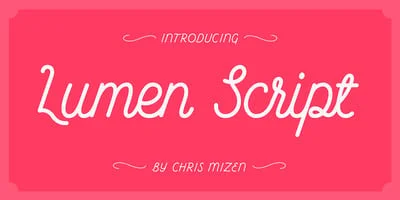
Lumen Script
Lumen Script Font
Lumen Script Font is perfect for luxury wedding invitation designs, elegant calligraphy workshop branding, high-end stationery boutique signage, sophisticated event planning communications, premium greeting card collections, upscale floral design marketing, refined personal branding materials, and distinguished social occasion announcements.
Lumen Script Font is exciting because it radiates the luminous beauty of masterful penmanship with its gracefully flowing letterforms that seem to dance across the page with the ethereal elegance of candlelight and the timeless sophistication of hand-lettered artistry. The typeface embodies the romantic tradition of fine calligraphy and the intimate beauty of personal correspondence, creating an immediate sense of heartfelt elegance and refined intimacy that resonates with those who appreciate the lost art of beautiful handwriting.
Lumen Script Font family includes Light, Regular, Medium, Bold, and Flourish variants, complemented by extensive swash alternatives and calligraphic decorative elements, offering designers exquisite typography tools for creating communications that celebrate the artistry of fine lettering and the emotional power of beautifully written words.
Whether you're developing an elegant event brand identity, designing luxury stationery collections, or creating sophisticated personal communications, Lumen Script Font provides unmatched calligraphic authenticity and romantic appeal. This luminous typeface perfectly captures the essence of fine penmanship while maintaining contemporary functionality for modern luxury marketing and personal communications. The font's flowing character variations and calligraphic rhythm make it particularly effective for brands that emphasize craftsmanship, romance, and the kind of personalized elegance that transforms ordinary occasions into treasured memories. Luxury event professionals consistently select Lumen Script Font when projects require typography that communicates sophistication, intimacy, and the kind of handcrafted beauty that elevates special moments into unforgettable experiences, making it indispensable for luxury event branding, premium stationery design, and any application where elegant script typography can honor the timeless tradition of beautiful writing and inspire people to slow down and appreciate the extraordinary power of words written with care, passion, and the kind of artistic dedication that transforms simple letters into expressions of love, celebration, and human connection.